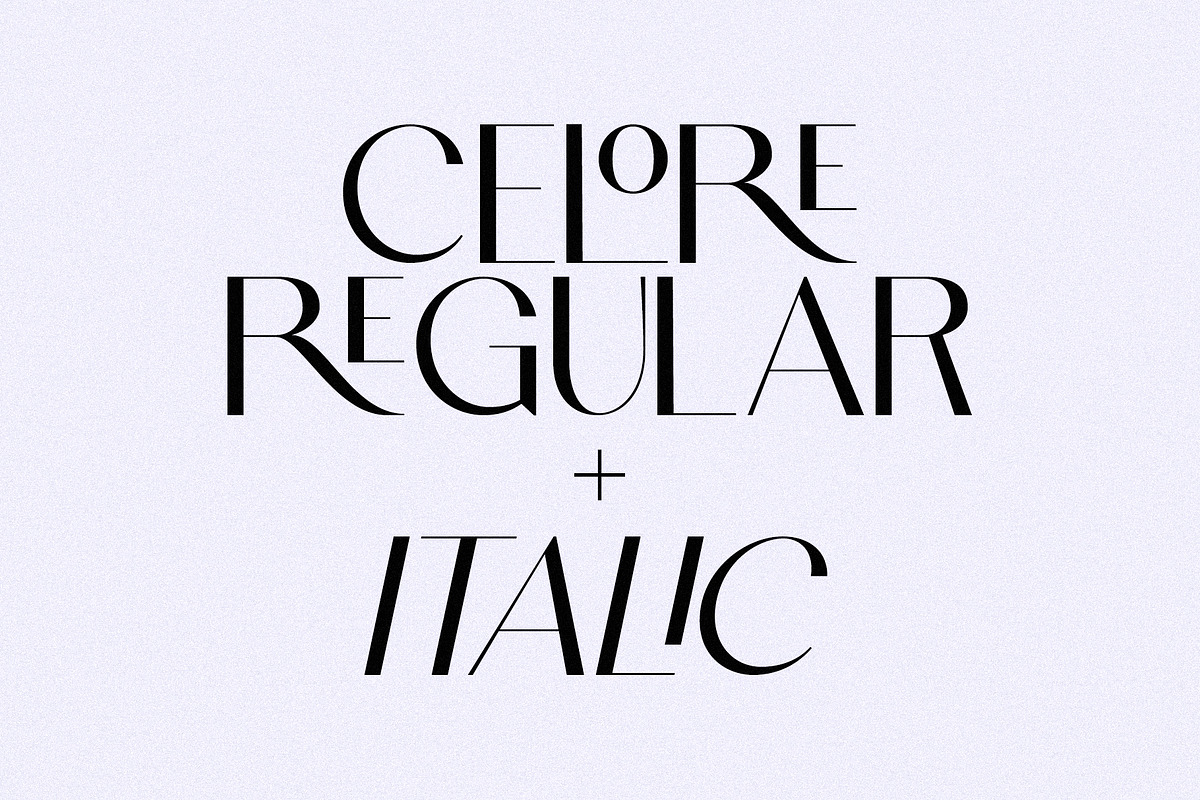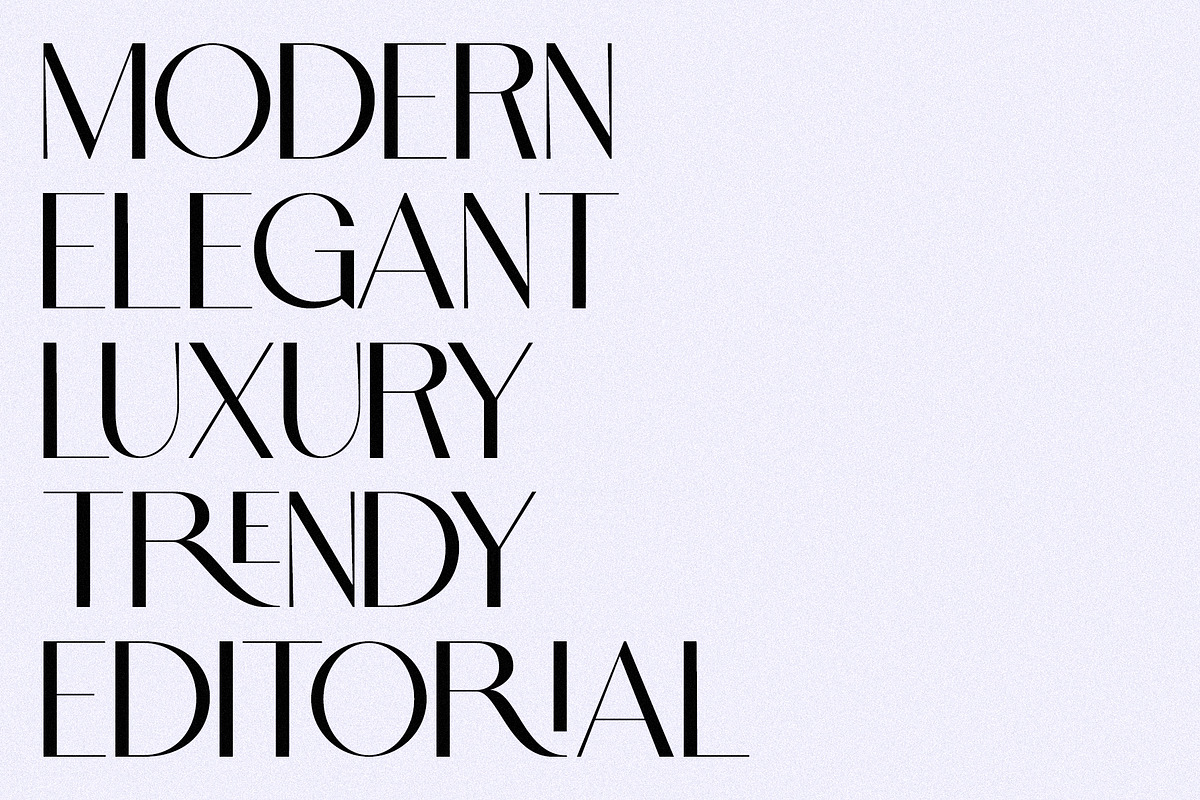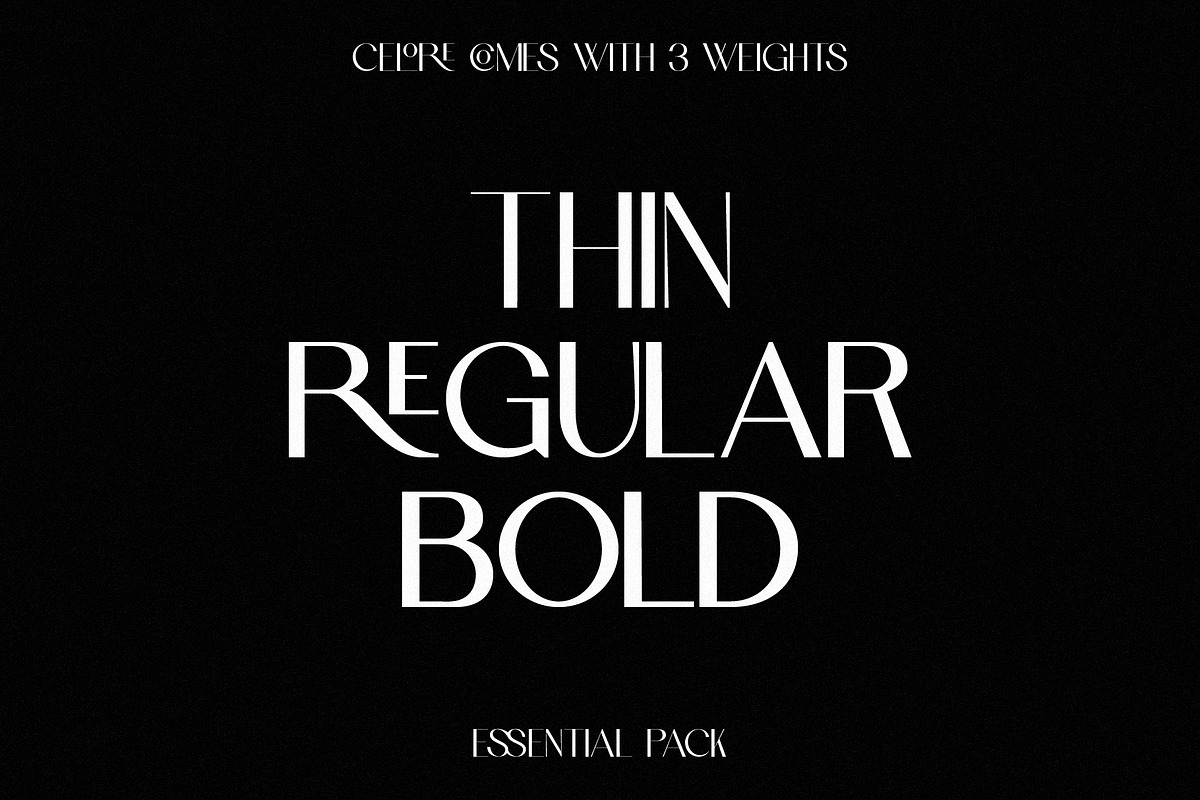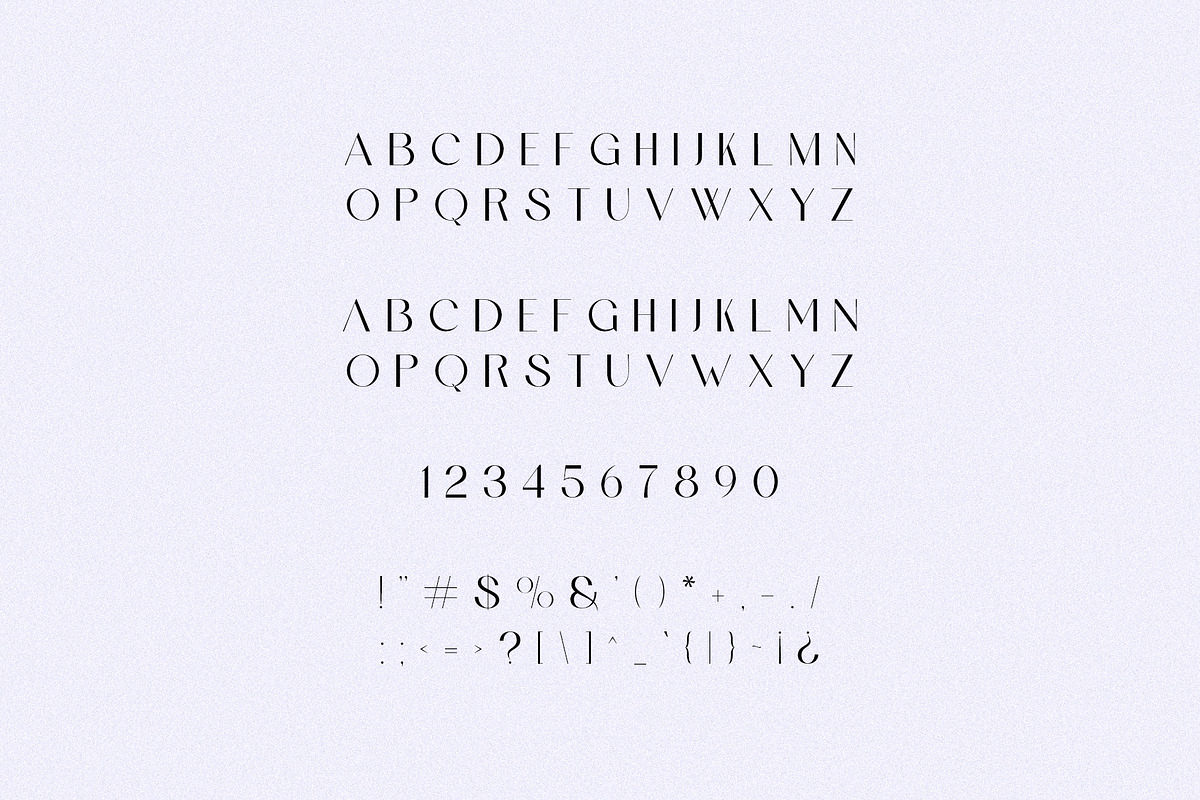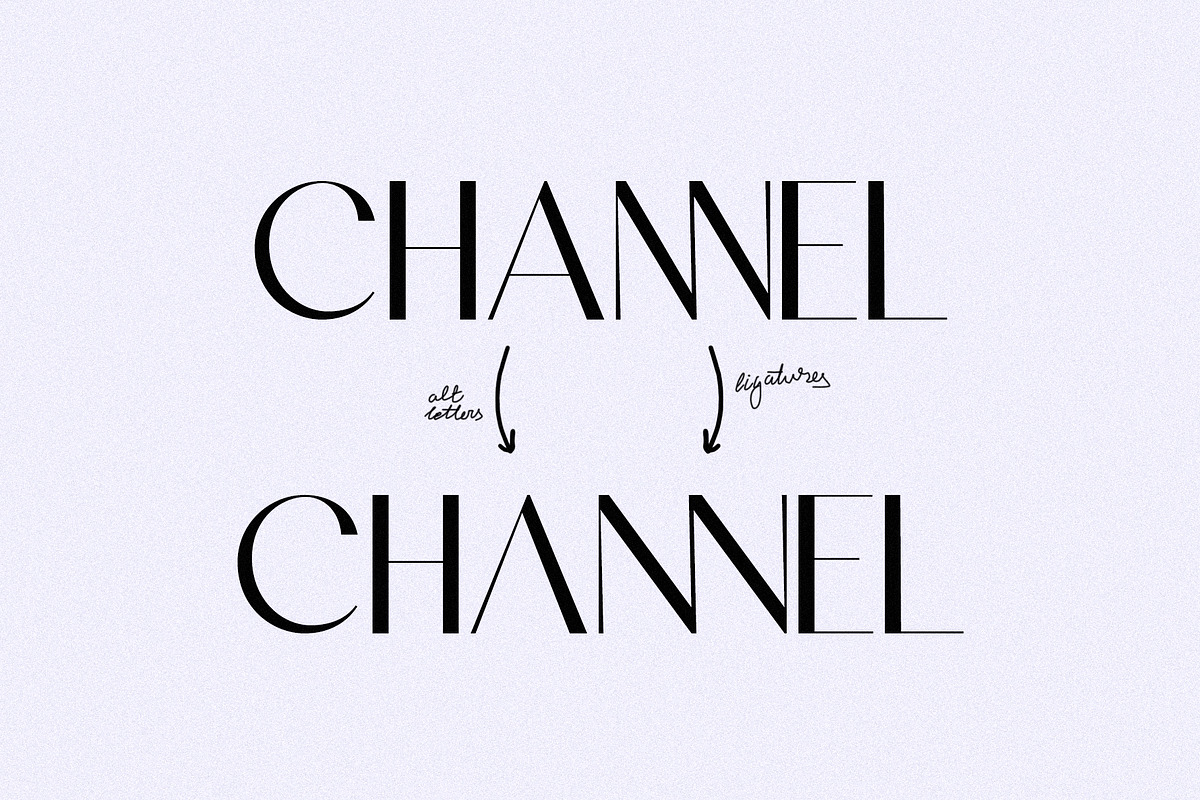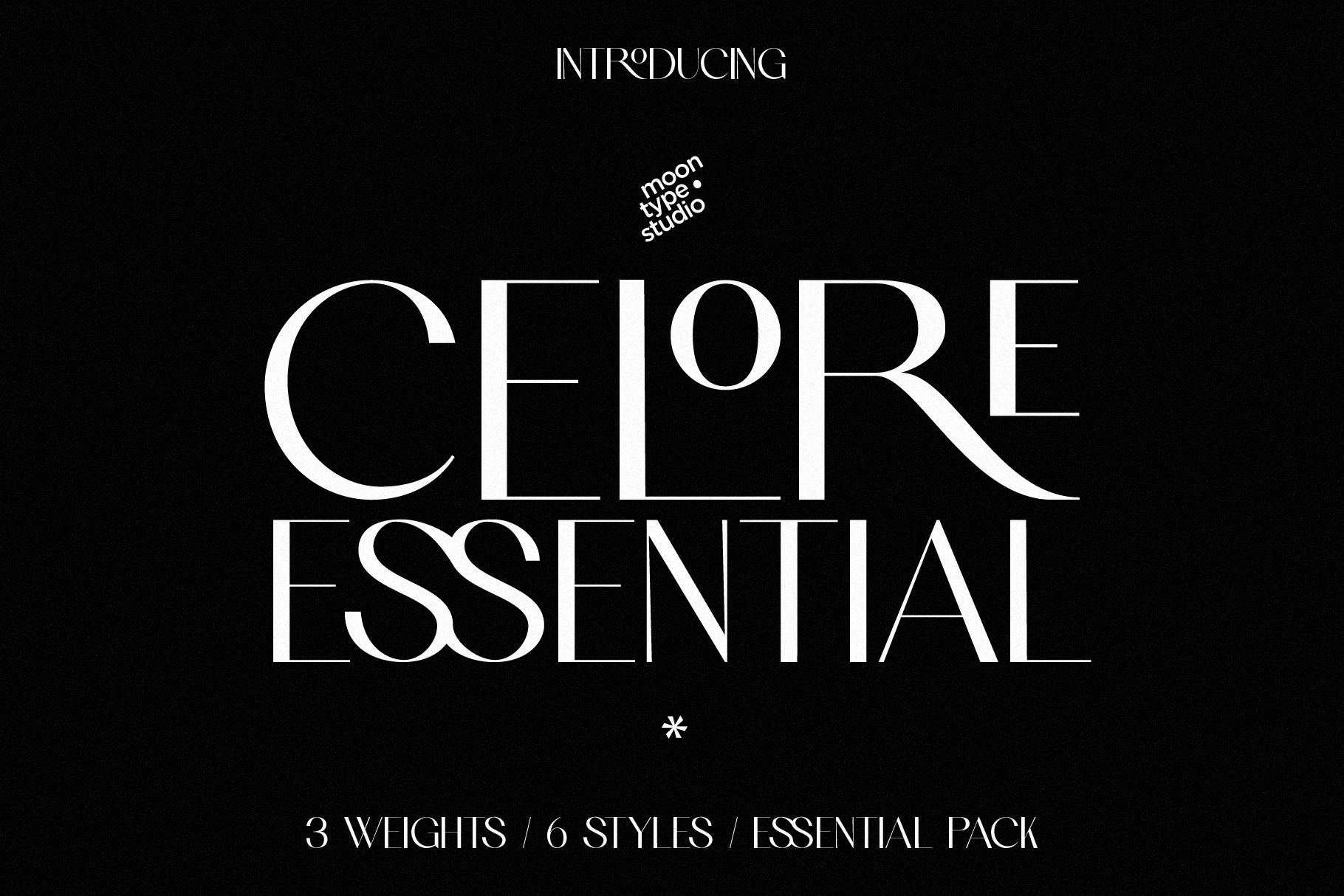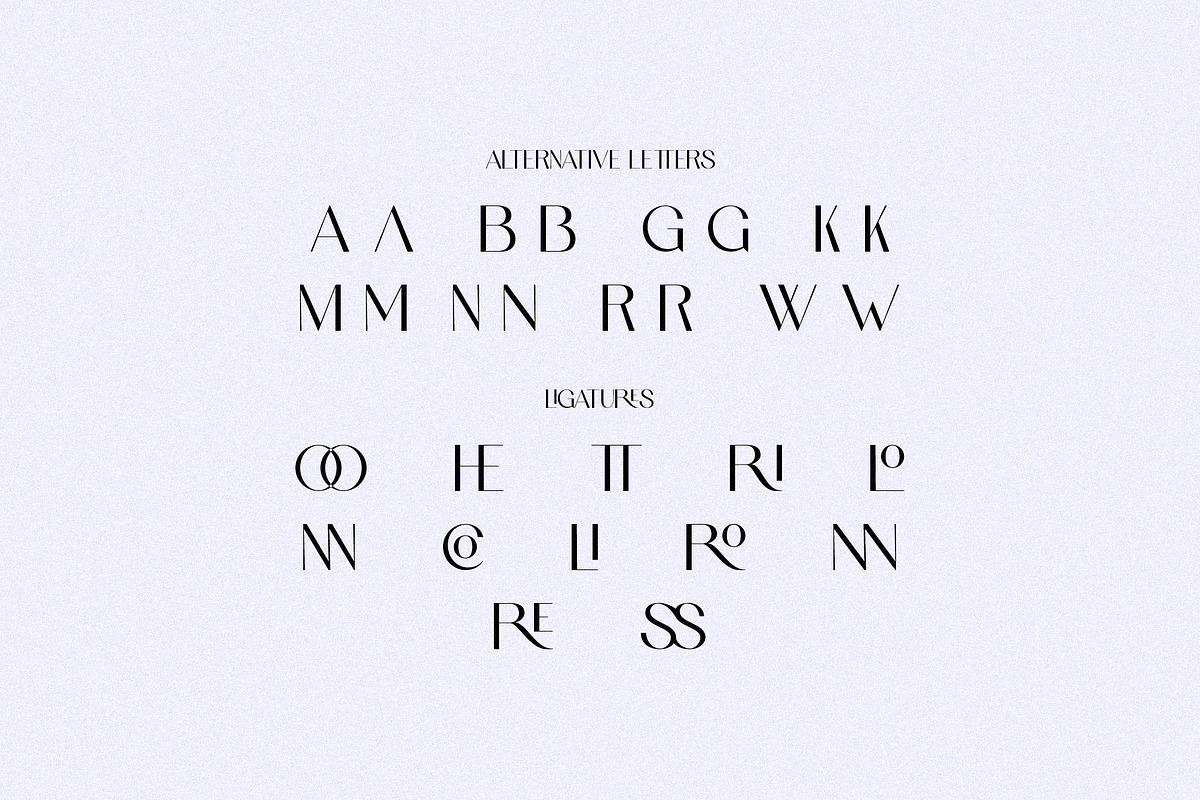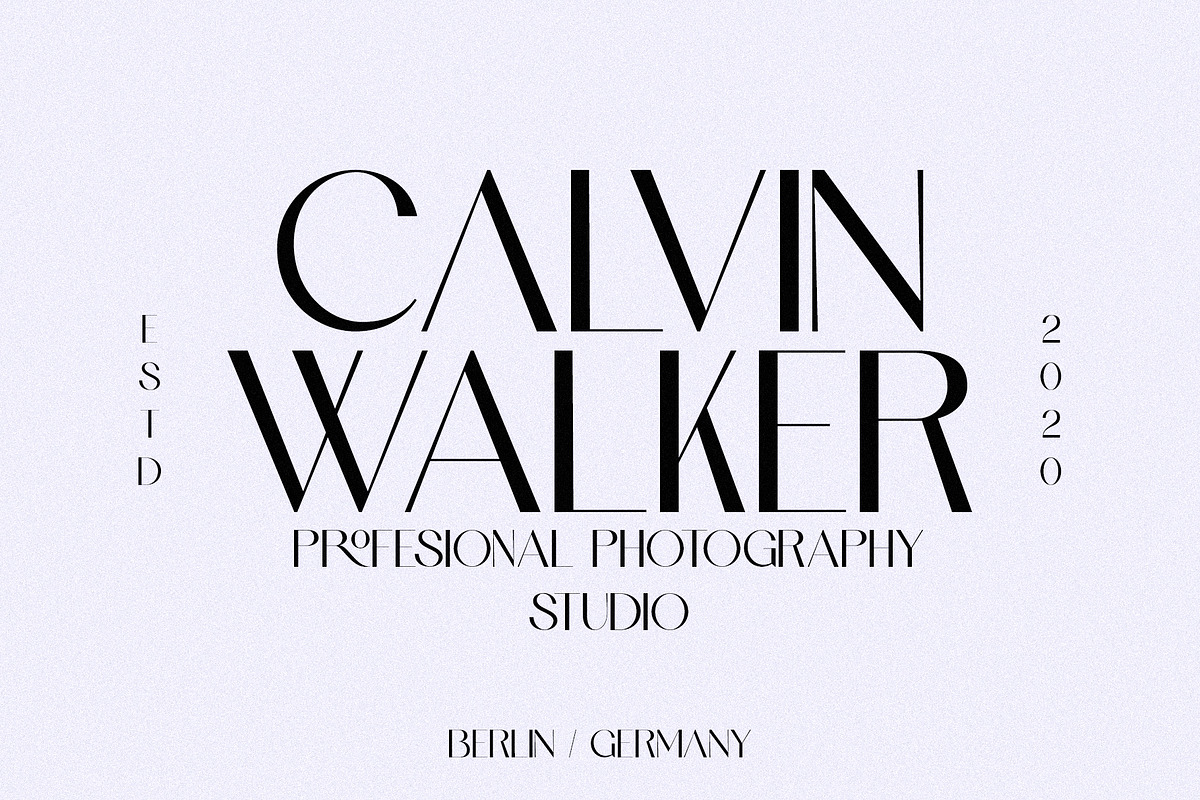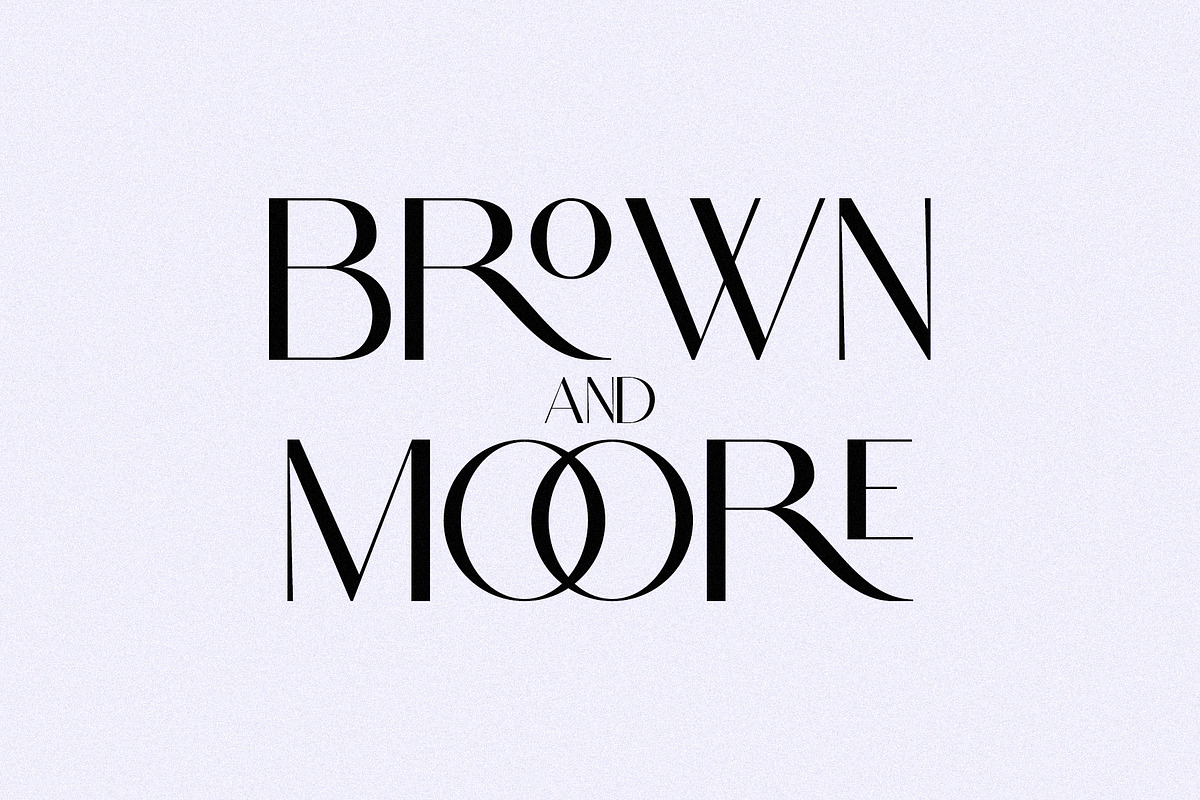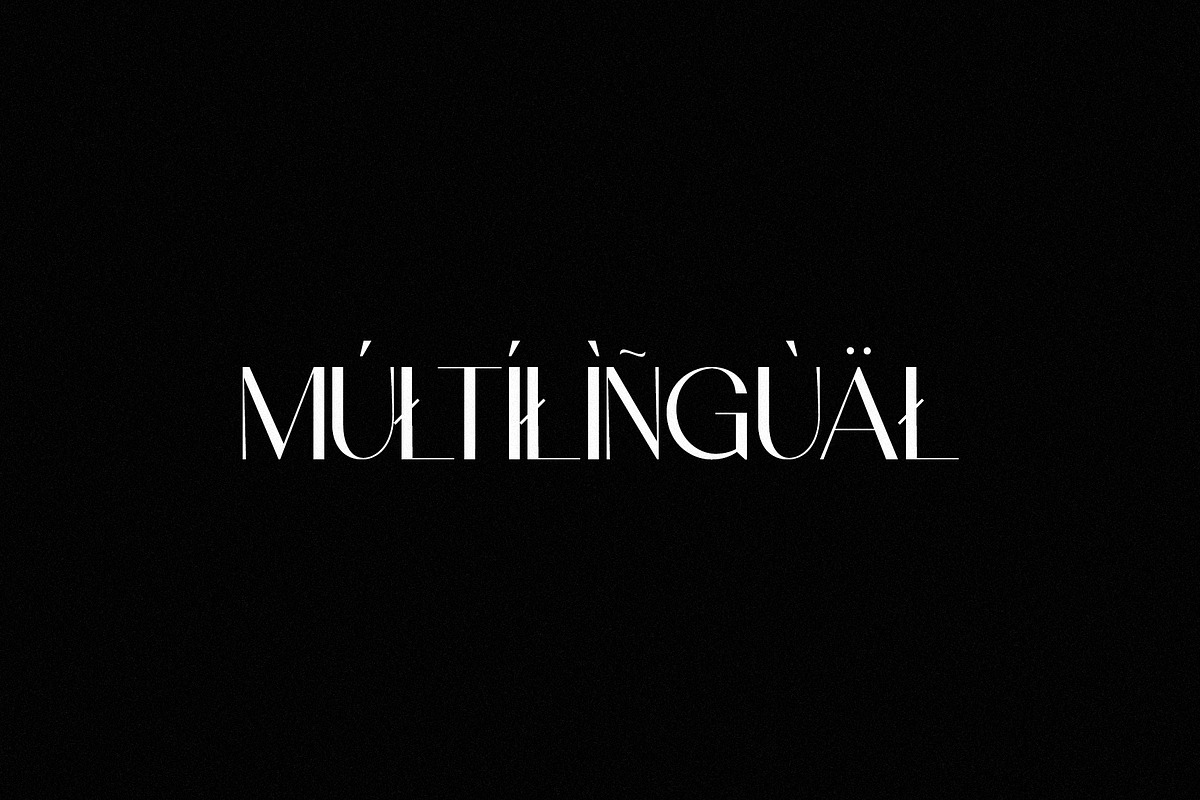
Celore - Essential Pack (6 Fonts)
Celore Essential Pack expands the refined elegance of Celore into a complete, versatile type system. Featuring Thin, Regular, and Bold weights - each paired with beautifully crafted Italics - this collection gives you the flexibility to design with greater depth, contrast, and expression.
Blending modern minimalism with timeless sophistication, Celore maintains its clean, confident presence while introducing a dynamic range of typographic voice. The Thin weight delivers airy elegance and refined luxury, Regular offers balanced clarity for everyday design, and Bold commands attention with strong, contemporary impact. The accompanying Italics add fluidity and movement, perfect for emphasis, editorial styling, or expressive branding moments.
Thoughtfully designed ligatures and alternative characters remain at the heart of the family, allowing you to create distinctive, high-end typography with ease. Whether you're building luxury branding systems, editorial layouts, logos, social media visuals, or premium packaging, Celore Essential Pack adapts seamlessly across both print and digital applications.
With harmonious proportions, smooth curves, and a cohesive structure across all styles, Celore Essential Pack empowers you to craft typography that feels polished, modern, and unmistakably refined.